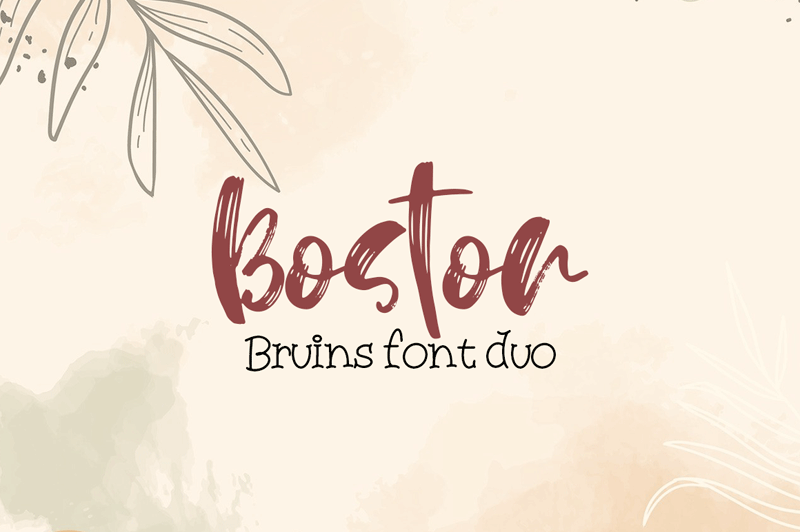
Preview and download Boston Bruins Script Font. Created by Alexander Tiunov in Script Brush styles with Free for personal use license.
Boston Bruins - a new Stylish handmade calligraphy font DUO. Very suitable for greeting cards, branding materials, business cards, quotes, posters, and more!This font are perfect for wedding postcard. Or you can create perfect and unique design of your logo, blog, stationery, marketing, magazines and more :) ZIP INCLUDED: OTF, TTF, WOFF. Please contact us if you have any questions. THANK YOU!!! by Besttypeco |